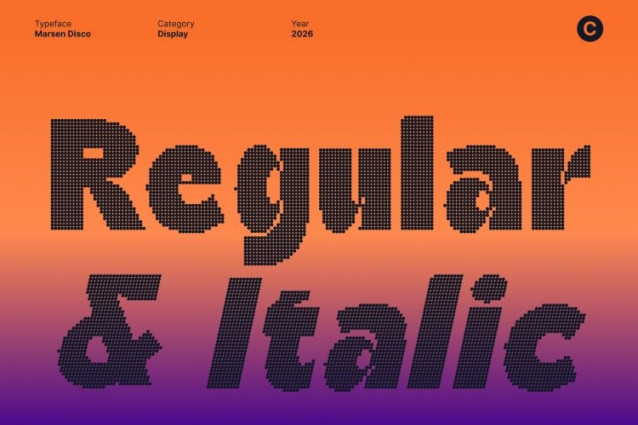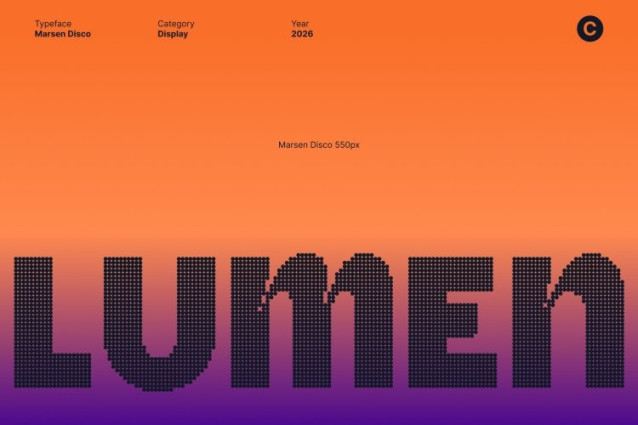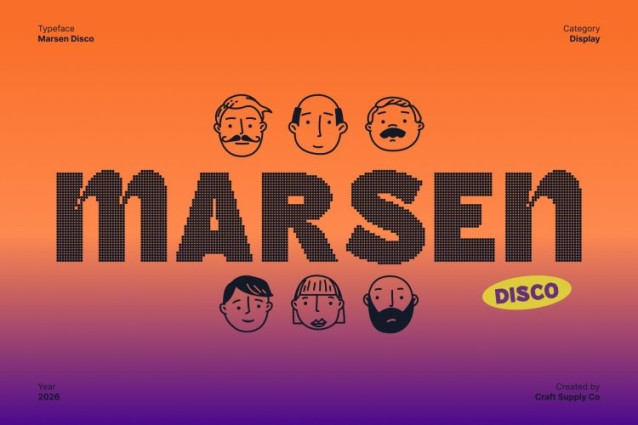
Marsen Disco Font
Marsen Disco Font This is a bold sans serif typeface enhanced with expressive inktrap details and a lively disco attitude. Its strong letterforms provide confidence and clarity, while the inktraps introduce a playful visual twist that feels dynamic, modern, and full of personality.
Funky, Joyful, and Dancefloor-Ready
The inktrap accents give a cute, funky, and joyful vibe perfectly echoing the sparkle and rhythm of disco culture. Each character feels energetic and animated, as if glowing under flashing lights, making the font ideal for designs that celebrate fun, movement, and excitement.
Playful Look with Professional Strength
Despite its festive and expressive style, maintains a clean, professional foundation. The bold structure ensures readability and impact, allowing the font to perform beautifully across branding, advertising, packaging, and promotional visuals without losing credibility.
Perfect for Expressive and High-Energy Designs
From posters, event flyers, and social media graphics to branding and cheerful campaigns, brings instant vibrancy to any layout. Its bold presence and quirky inktrap details make every headline feel engaging, memorable, and full of life.